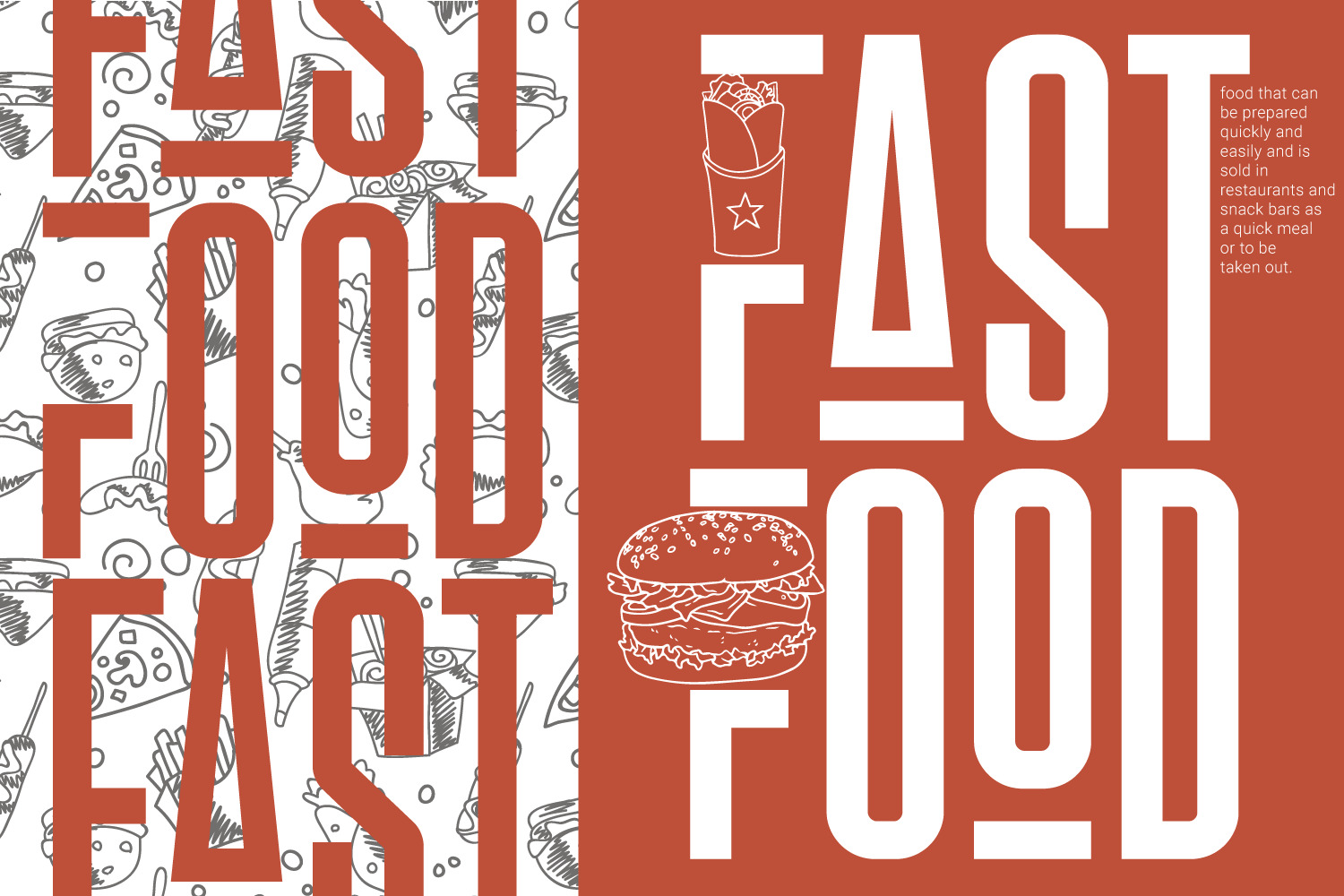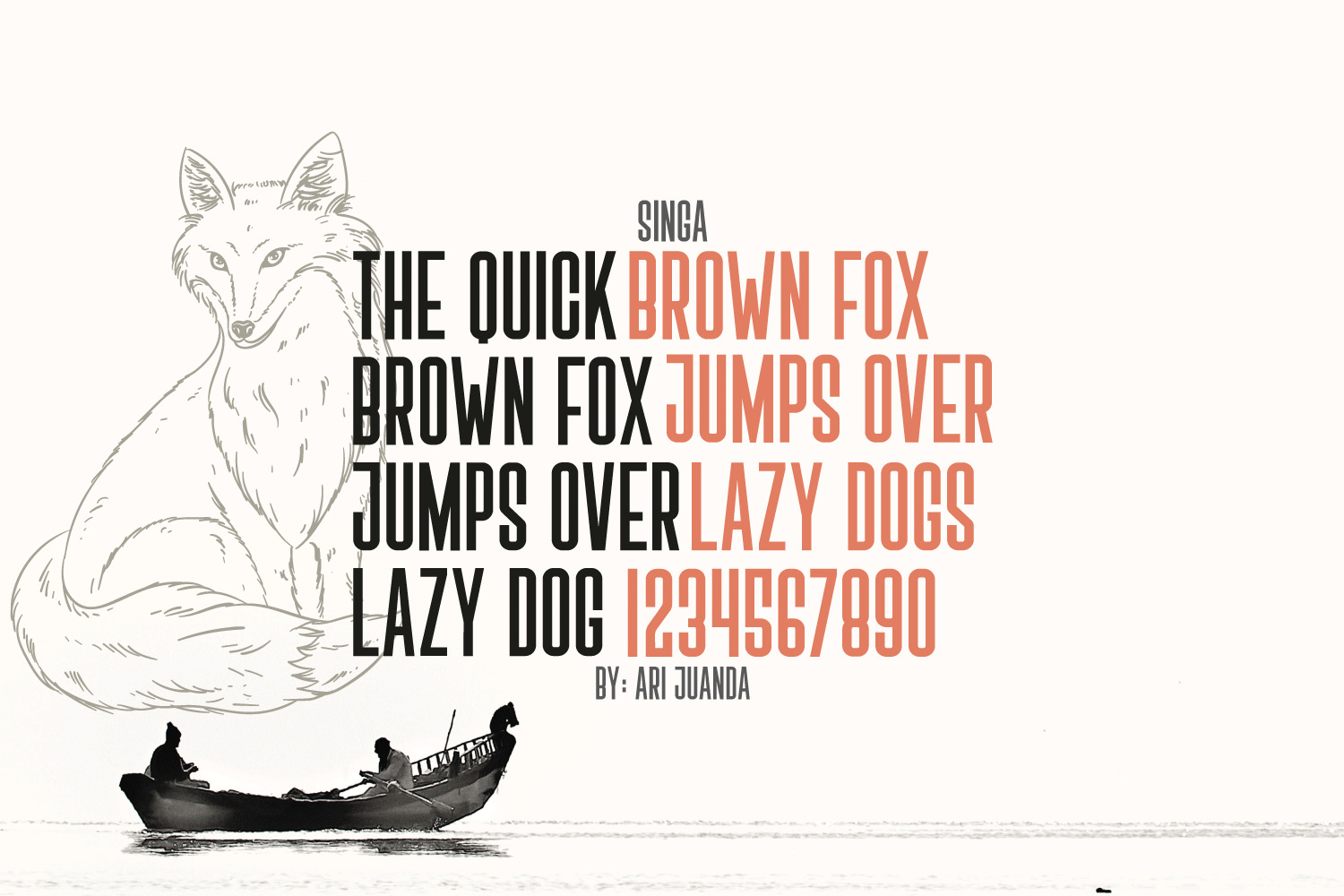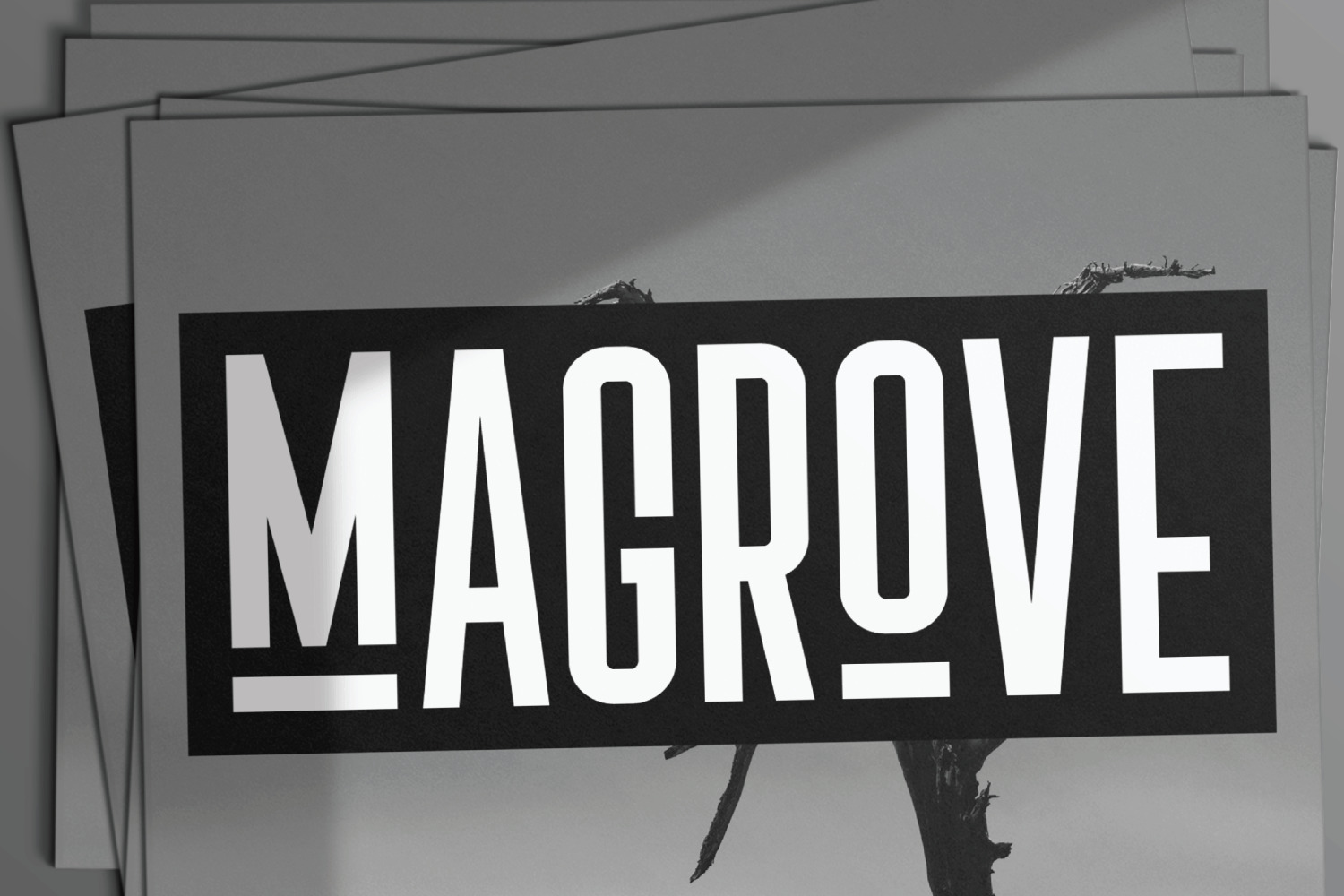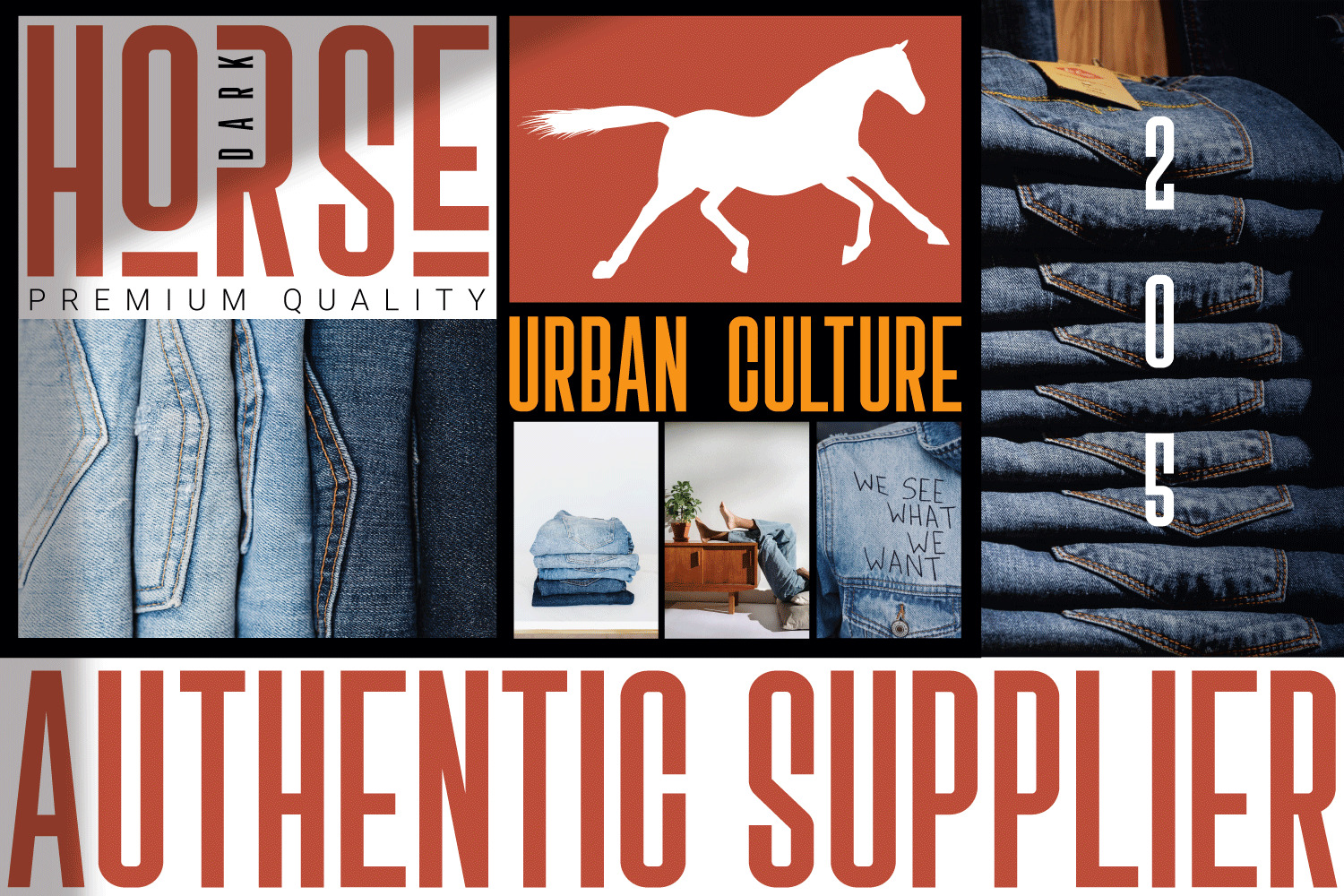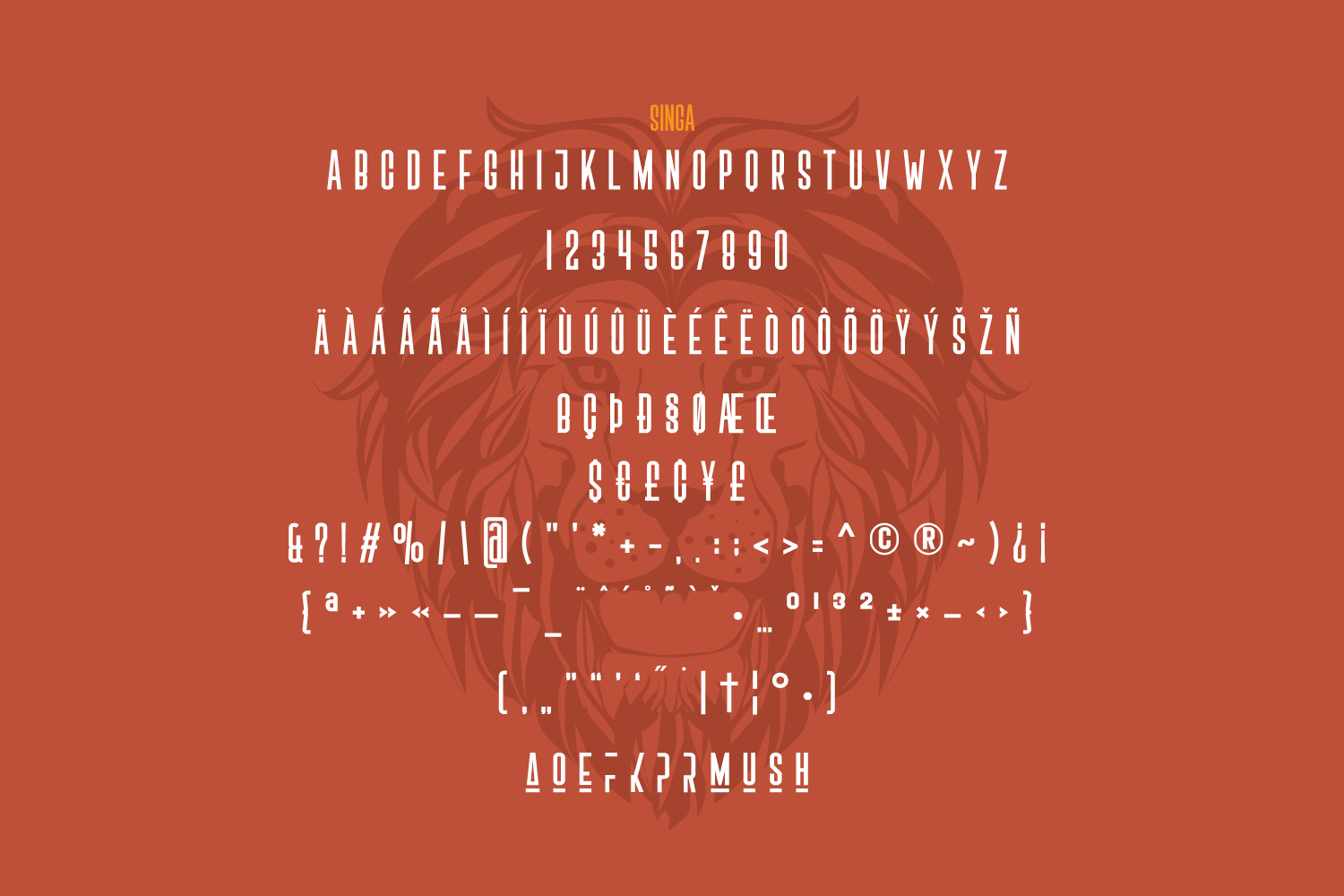
Singa Font
Looks simple and powerful. This is the reason why we want to offer you the Singa font. This font gives off a clean, powerful and very elegant feel. This font is perfect for use in headlines, posters, branding, titles, and other graphic designs.
Singa- A clean San serif font including Upper & Lowercase characters(ALL CAPS),
Stylistic alternates Character (11 Character)
Supports Multi linguage (Latin Western Europe), Numbers and Punctuation